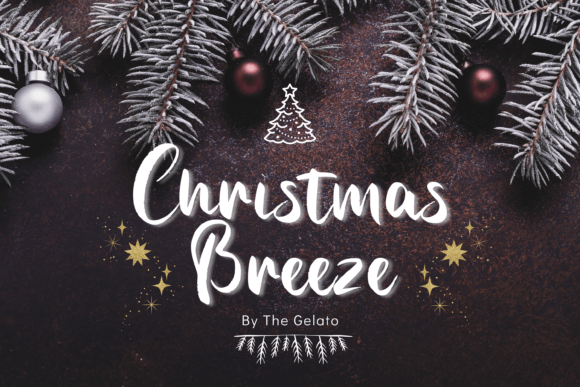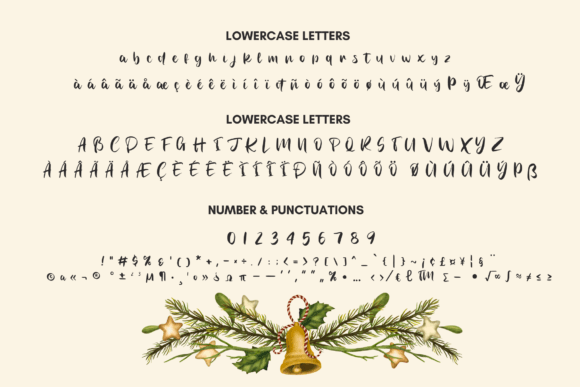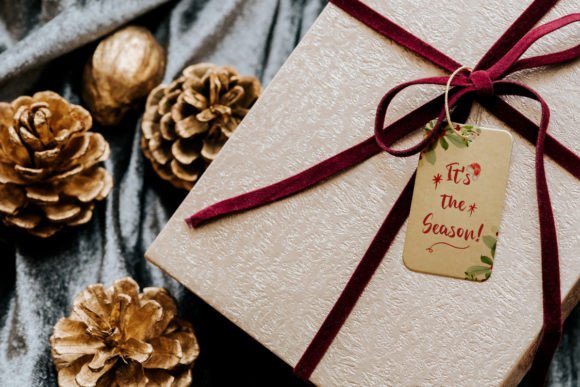
About Christmas Breeze Font
Christmas Breeze is a neat, modern, and casual handwritten script font designed for the special holiday season! It conveys joy, cheerfulness, and liveliness and is perfect for all your creative projects. You can also use this font for other occasions, such as wedding cards, celebration initiation cards, etc.